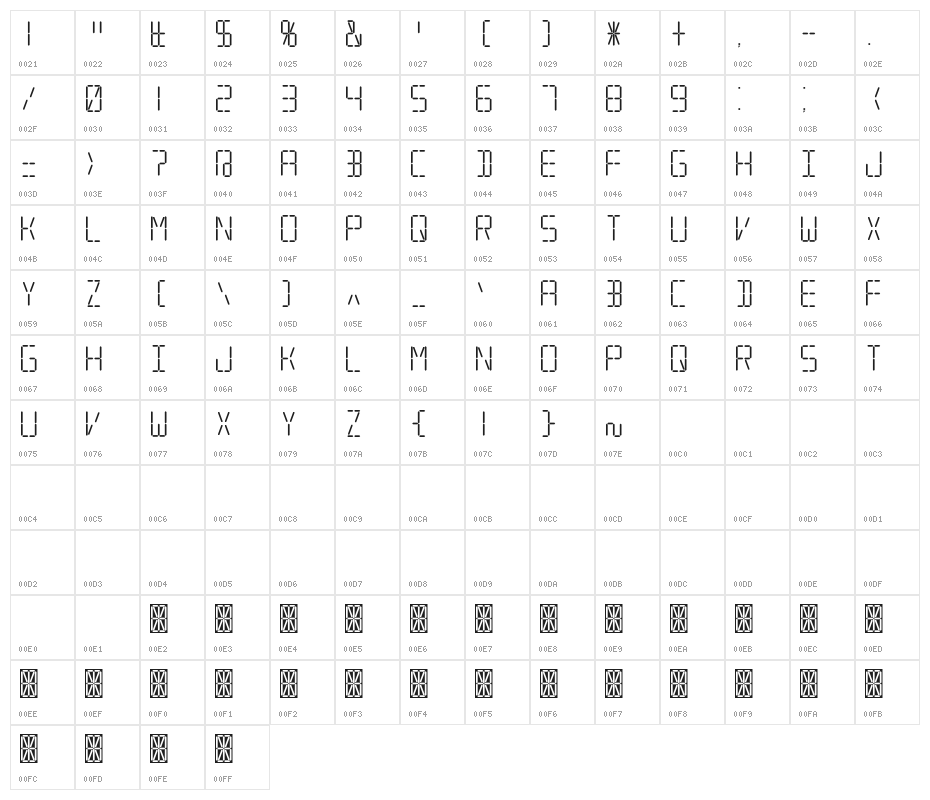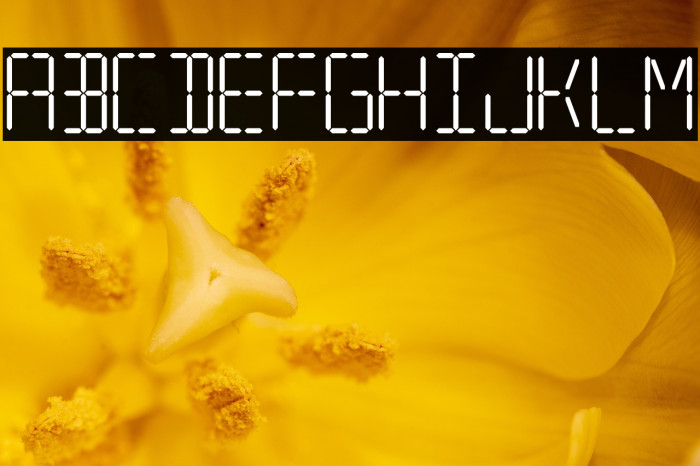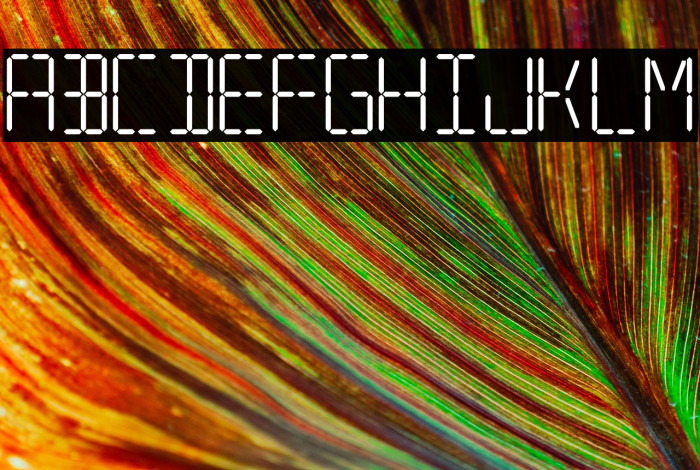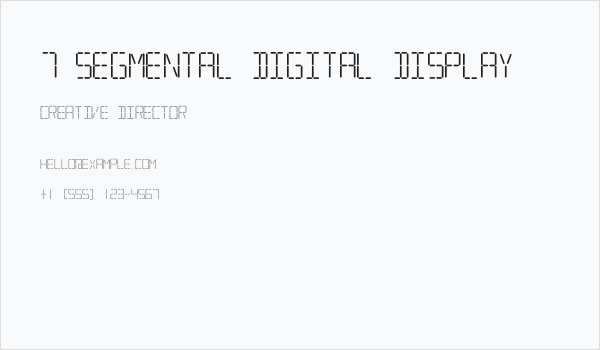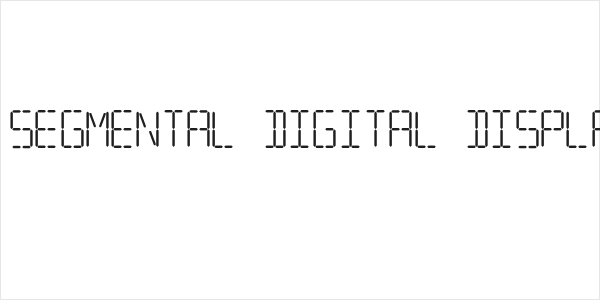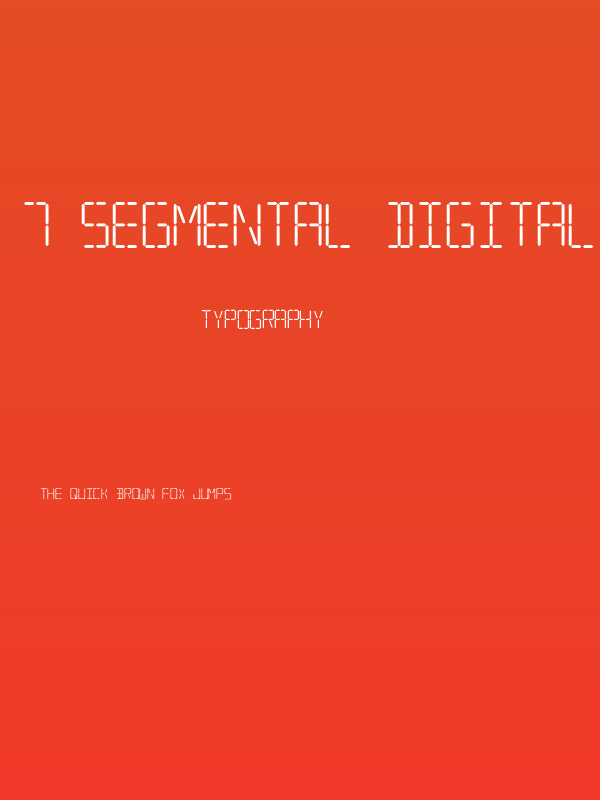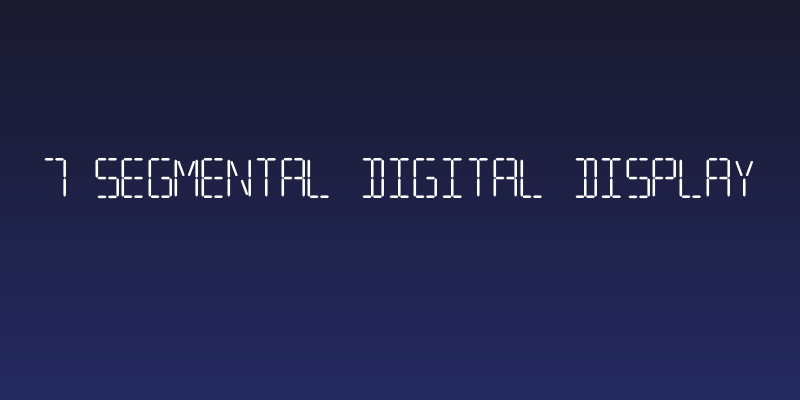
7 SEGMENTAL DIGITAL DISPLAY Font
7 SEGMENTAL DIGITAL DISPLAY Description
This font is designed to mimic the appearance of a seven-segment digital display, commonly seen in digital clocks and calculators. Each character is constructed using a series of straight lines and angles, creating a segmented look that is both geometric and mechanical. The font is highly legible and distinct, with each letter and number clearly defined by its segmented structure. The uppercase and lowercase letters share a similar design, maintaining consistency throughout the typeface. The numerals are particularly reminiscent of traditional digital displays, enhancing the font's thematic coherence. Special characters are also included, adhering to the segmented style, which adds to the font's versatility.
| Use Case | Headlines, Logos, Digital Interfaces |
| Proposed Projects | Ideal for digital-themed projects, tech-related branding, retro designs, and any application requiring a futuristic or electronic aesthetic. |